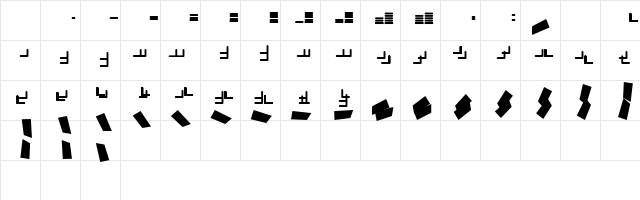
linea straightforward
Design Context for linea Typeface
linea is a composed and adaptable typeface that performs quietly and consistently across a wide range of design contexts.